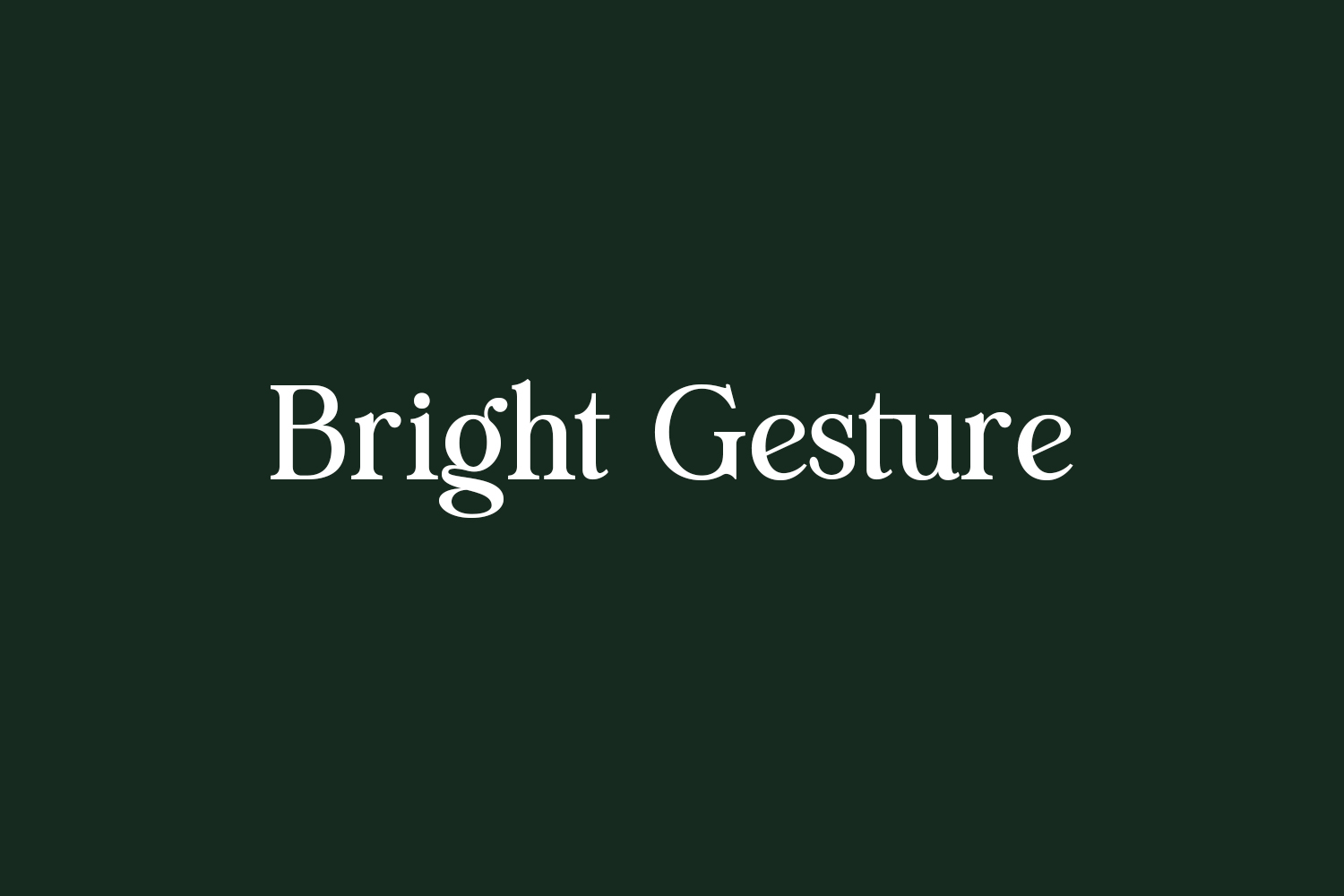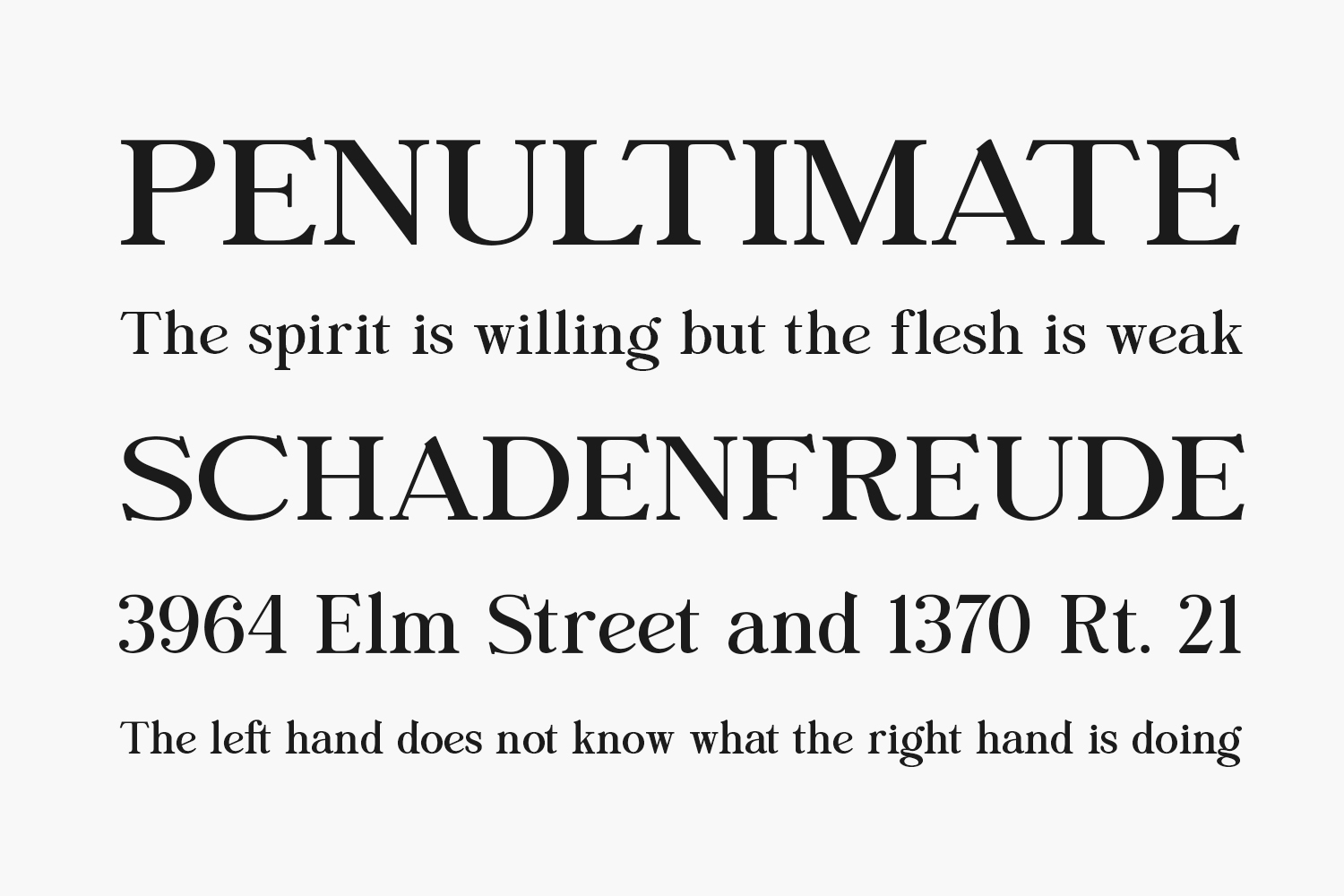
Bright Gesture Free Font is a modern serif font that is readable, bold and stylish. It is defined by smooth curves and is perfect for fashion branding or editorial designs. Add it confidently to your projects, and you will love the results. Bright Gesture Free Font was designed by Letterhend Studio and is free for personal use only. Please purchase the full version for commercial use.